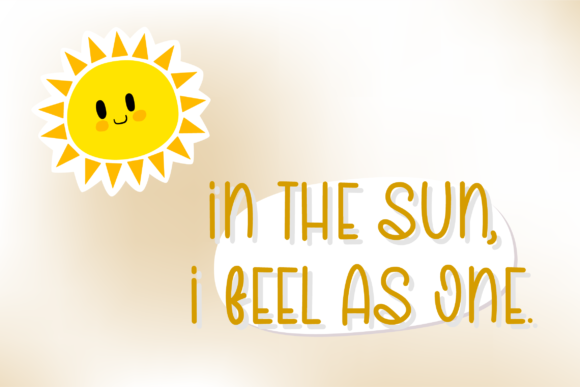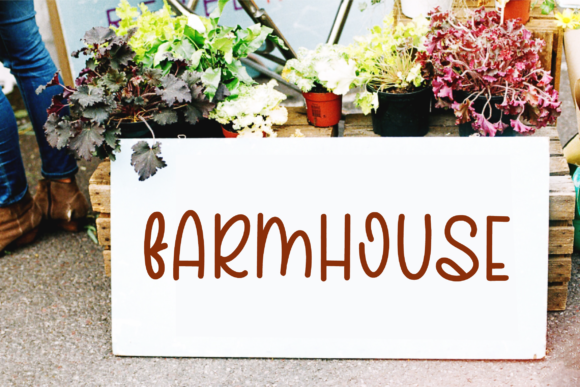
About Sionsel Font
Sionsel is a cute, fun and friendly handwritten font, that can be used for all chalkboard quotes or teaching material! This font is perfect for children themed designs, especially when combined with bright colors.